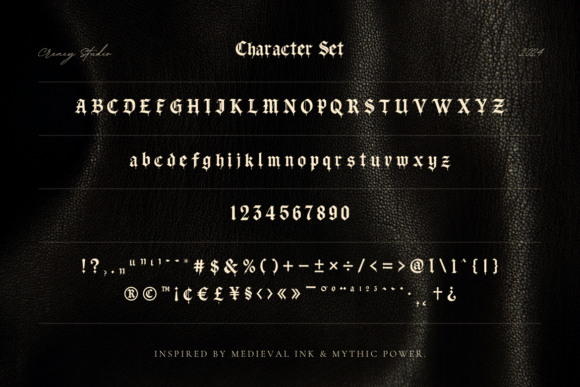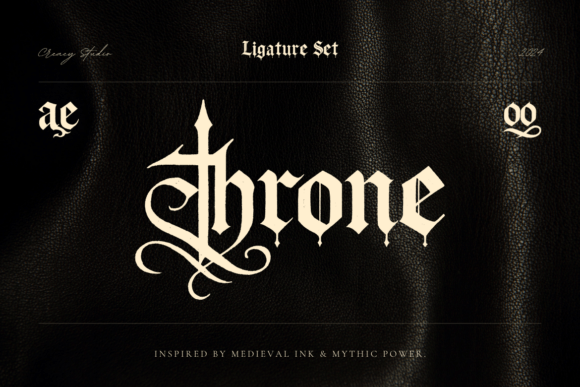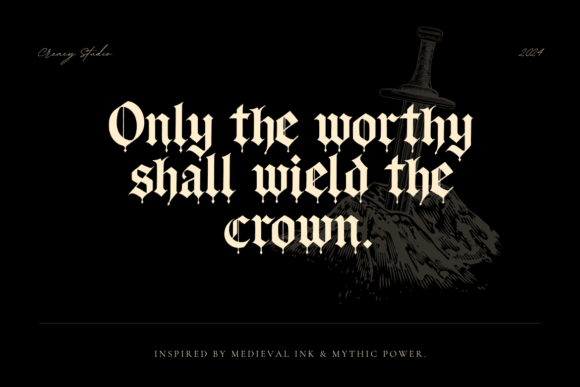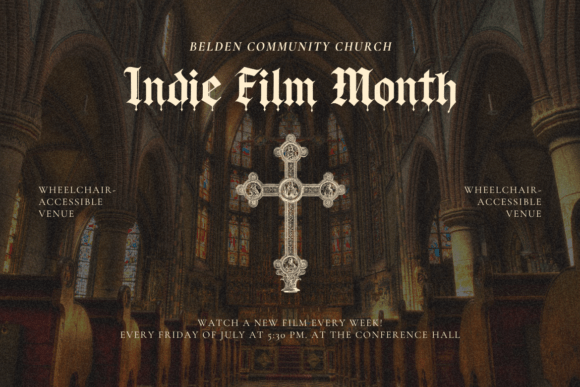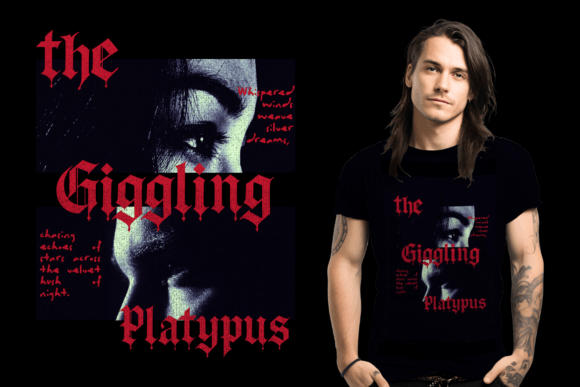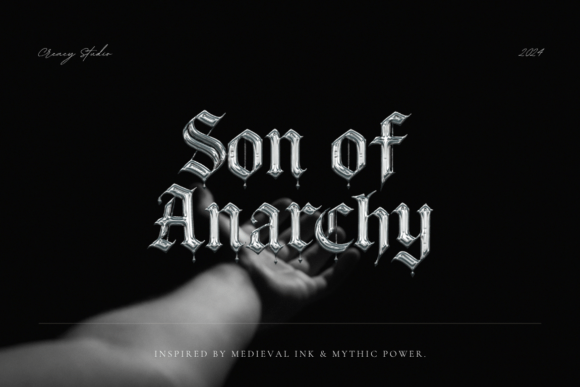
Unveiling Grimoire Noir: A Journey Through Time and Typography
Have you ever been in the midst of a design project, only to find yourself stuck on the perfect font? I recall a particularly daunting experience while working on a dark fantasy novel cover. My client wanted a typface that would transport readers to a mystical realm, but my font library was woefully inadequate. That’s when I stumbled upon Grimoire Noir, a classic Gothic blackletter typeface that would change the game.
The Allure of Grimoire Noir
Grimoire Noir is more than just a font – it’s an experience. This stunning typeface serves as your encrypted passageway to the irresistible charisma of the Medieval epoch. By using cues from age-old manuscripts, hallowed cathedral carvings, and fabled legends, Grimoire Noir seamlessly marries the robust vibrancy of Gothic strokes with the elegance of modern typography.
What Makes Grimoire Noir Special?
So, what sets Grimoire Noir apart from other fonts? Here are a few things that I love:
- ✨ Unparalleled Versatility: Grimoire Noir is perfect for dark fantasy motifs, immersive video game entries, gripping novel jackets, retro branding, or influential heavy-metal designs.
- ✅ Elegant Gothic Flair: The font’s Gothic strokes are both robust and refined, making it perfect for designs that require a touch of medieval mystique.
- 💫 Modern Twists: Grimoire Noir’s modern typography ensures that your designs feel fresh and contemporary, rather than stuck in the past.
Honest Review: The Not-So-Perfect Font
While Grimoire Noir is an exceptional font, it’s not without its quirks. Here are a few things to keep in mind:
- 🤔 Limited Legibility: As with many Gothic fonts, Grimoire Noir can be challenging to read in large blocks of text. Use it sparingly for headlines or titles.
- ⚠️ Glyph Limitations: While Grimoire Noir has an impressive range of glyphs, some users may find that it lacks certain characters or diacritics.
The Backstory of Grimoire Noir
Legend has it that Grimoire Noir was inspired by a mysterious, ancient tome hidden deep within a medieval cathedral. The font’s creator, a typographer with a passion for mysticism and history, spent years pouring over ancient manuscripts and carvings to craft a font that would transport users to another era. While the story may be fictional, the font’s allure is undeniable.
| What is Grimoire Noir? | Grimoire Noir is a classic Gothic blackletter typeface, perfect for designs that require a touch of medieval mystique. |